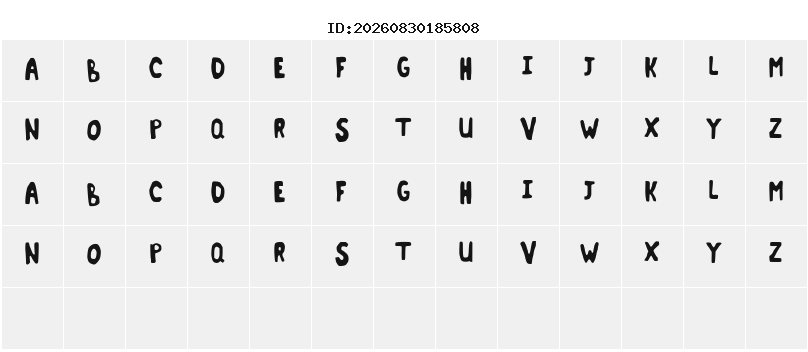
Terminant Preview
About Terminant.ttf
Terminant.ttf is a modern, elegant sans-serif font designed for ultimate readability and visual harmony. Perfect for branding, headlines, web design, and print materials.